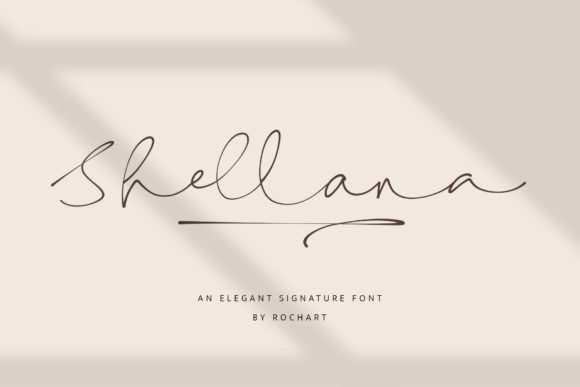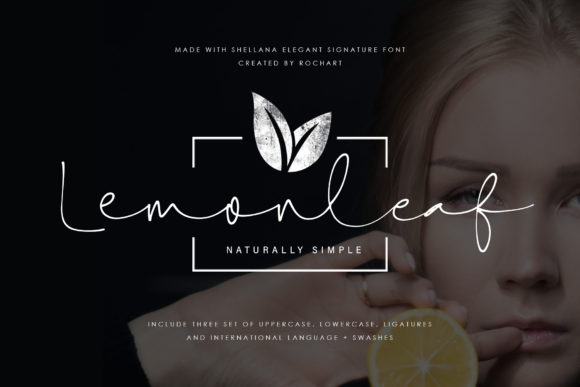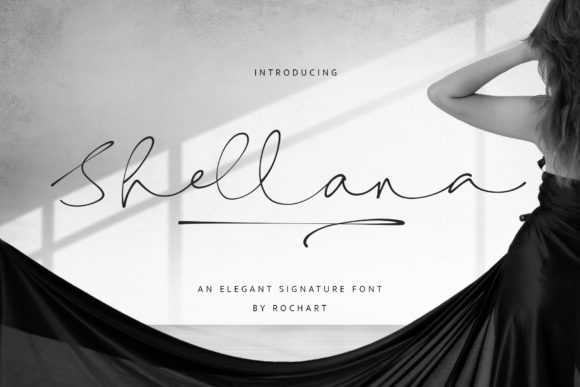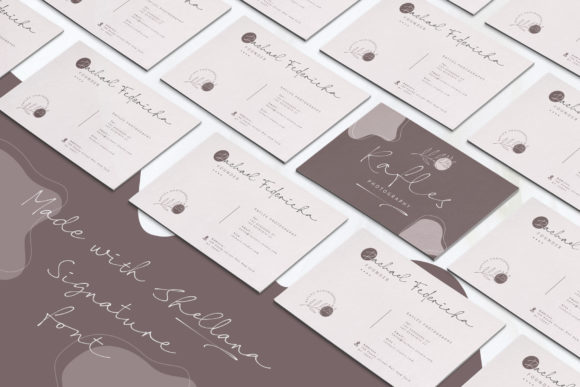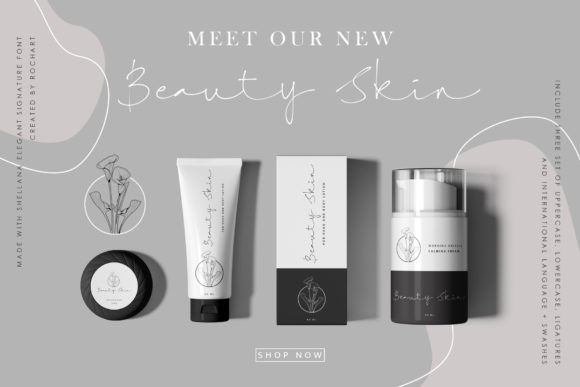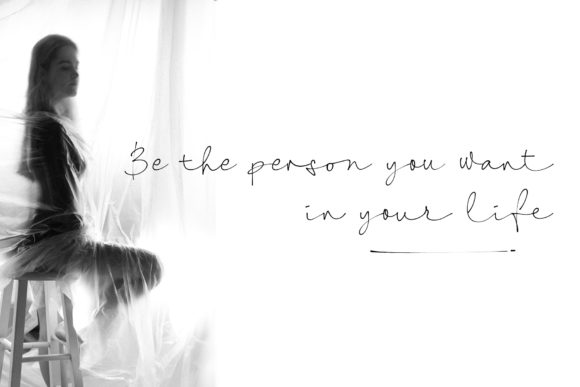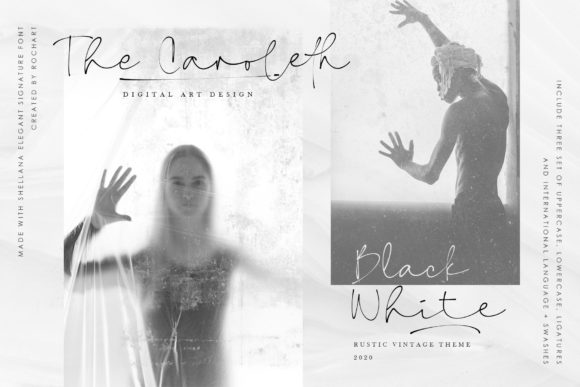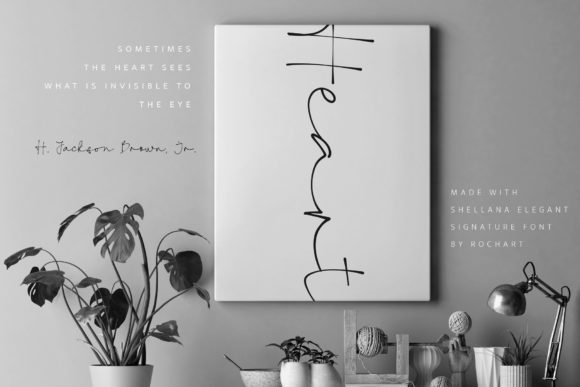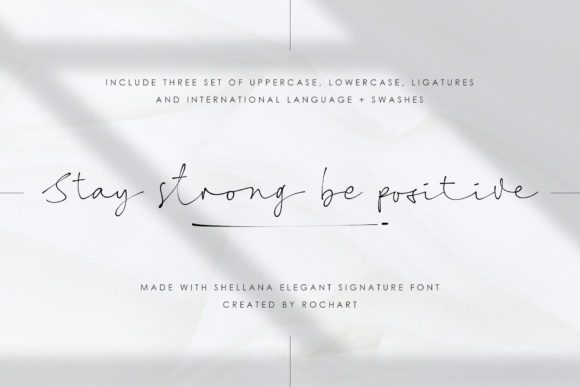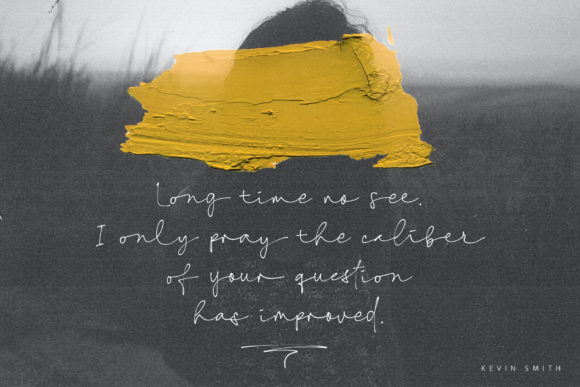
Shellana Font
About Shellana Font
Shellana: Embrace the Elegantly Flowing Handwritten Font
Introducing Shellana, a font that gracefully flows with an elegant touch, making it perfect for your favorite projects. Its distinct and timeless style will captivate your heart, allowing you to create truly spectacular designs. Whether you’re crafting enchanting wedding invitations, designing inspiring quotes, creating captivating logos, or any other project that calls for a touch of elegance—Shellana is the ideal choice. Fall in love with its flowing beauty and let it become the centerpiece of your creative endeavors.
The allure of Shellana lies in its flowing and elegant nature. Each letter is thoughtfully crafted to exude a sense of grace and sophistication, instantly drawing attention and admiration.
Designing with Shellana is a delightful experience. Its timeless strokes and elegant style bring a touch of authenticity to your creations, making them truly special and captivating.
Fall in love with the versatility of Shellana. Whether you’re designing for romantic celebrations or aiming to evoke emotions through your designs, this font effortlessly adapts to suit your creative vision.
Unleash your creativity with Shellana. Its flowing and elegant touch allows you to create designs that showcase beauty and grace, leaving a lasting impact on your audience.
Gorgeous designs come to life with Shellana’s stunning and timeless style. Whether you’re crafting elegant wedding invitations or designing inspiring quotes, this font adds a touch of sophistication that resonates with your audience.
In conclusion, Shellana is more than just a font; it’s an elegantly flowing masterpiece that invites you to explore the endless possibilities of creativity. Embrace its graceful charm, and let it become the heart of your most cherished projects. Whether you’re celebrating love, expressing profound sentiments, or engaging in any creative endeavor, Shellana will be your trusted companion, adding a touch of elegance and sophistication. Allow this font to unlock the full potential of your creativity, and watch as your designs come alive with the flowing and timeless spirit of Shellana. Fall in love with its distinctive allure, and let it guide you to create truly spectacular designs that leave a lasting impression on all who behold them.